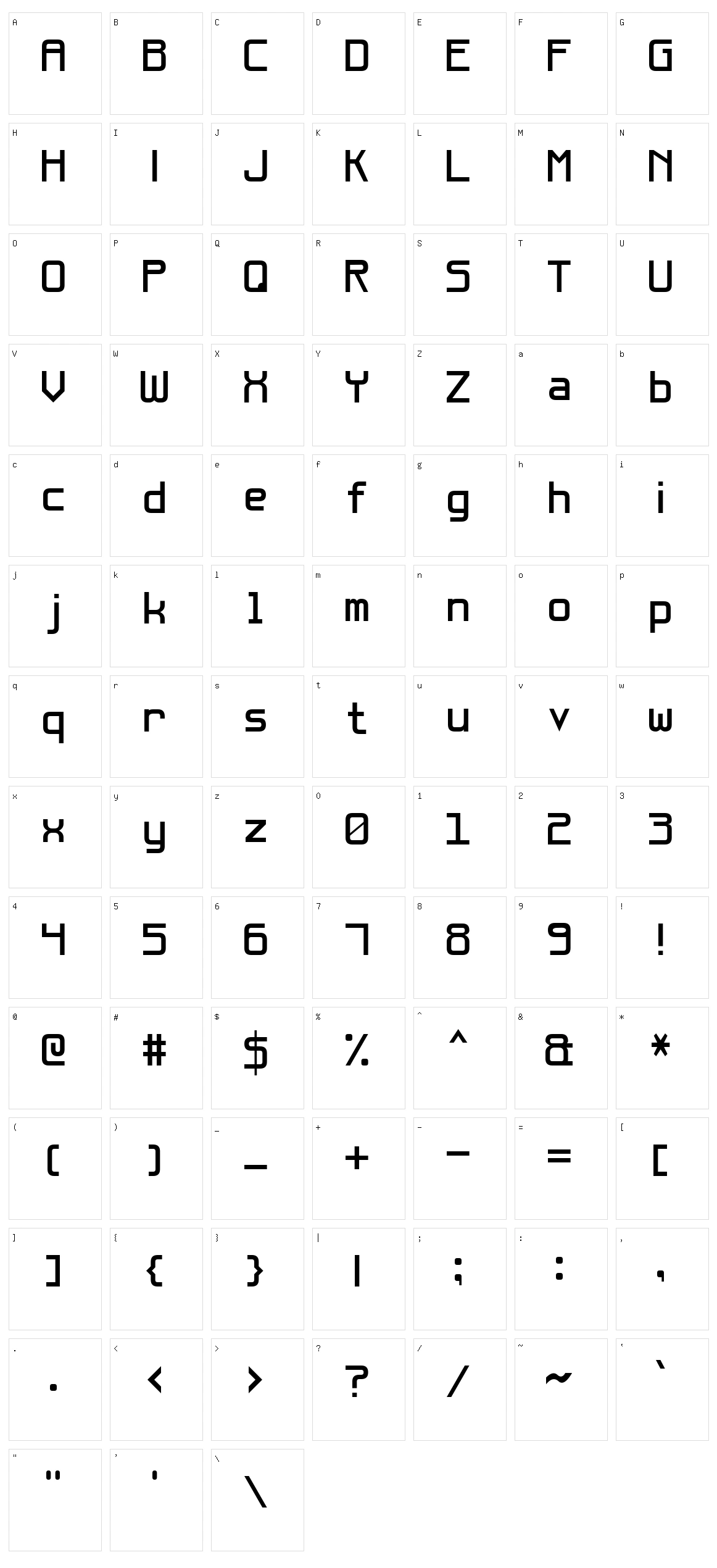
The free font Effective Way 7 is carefully designed by Style-7, showcasing a thoughtful balance of creativity and usability and falls under the Sans serif font style. When you download the ZIP file, it contains only 53.16 KB of font files, making it lightweight and quick to download. Please review the license details below to understand permitted usage and distribution rights. If license information is not available, we recommend using this font for personal projects only or contacting the author directly for commercial usage permissions.
Original decorative font.